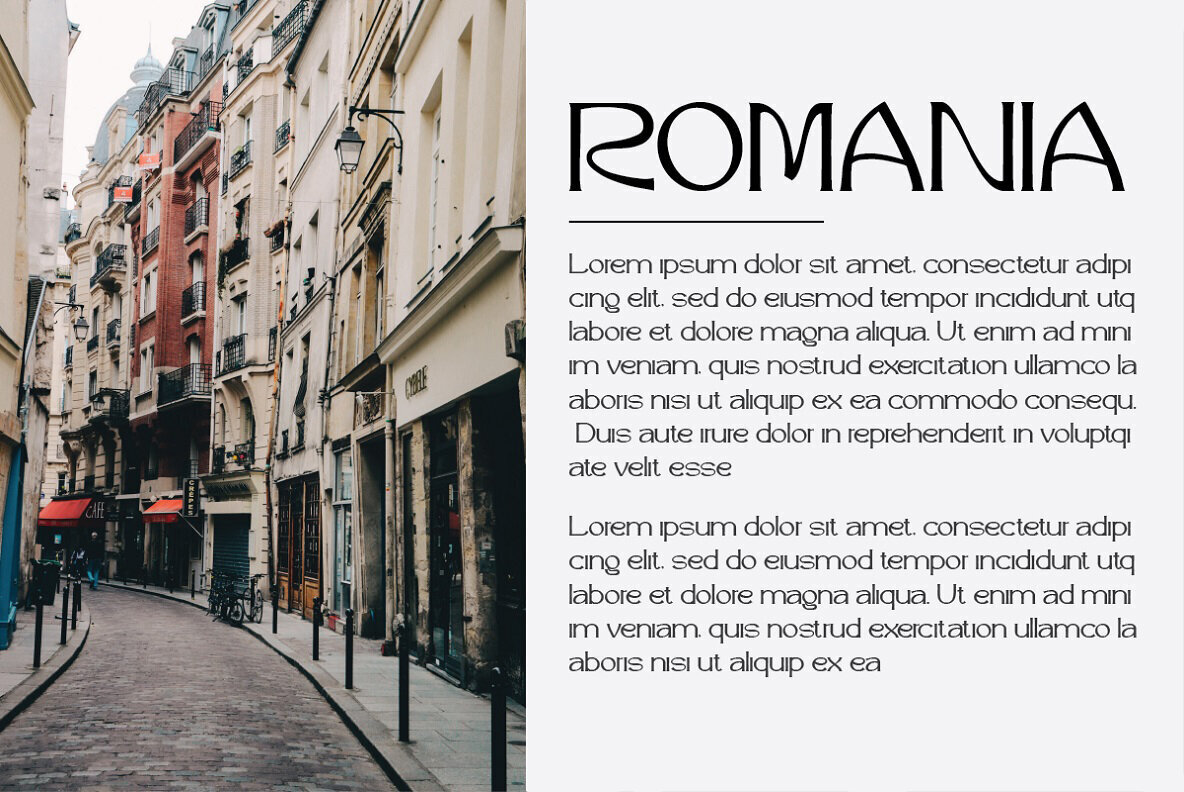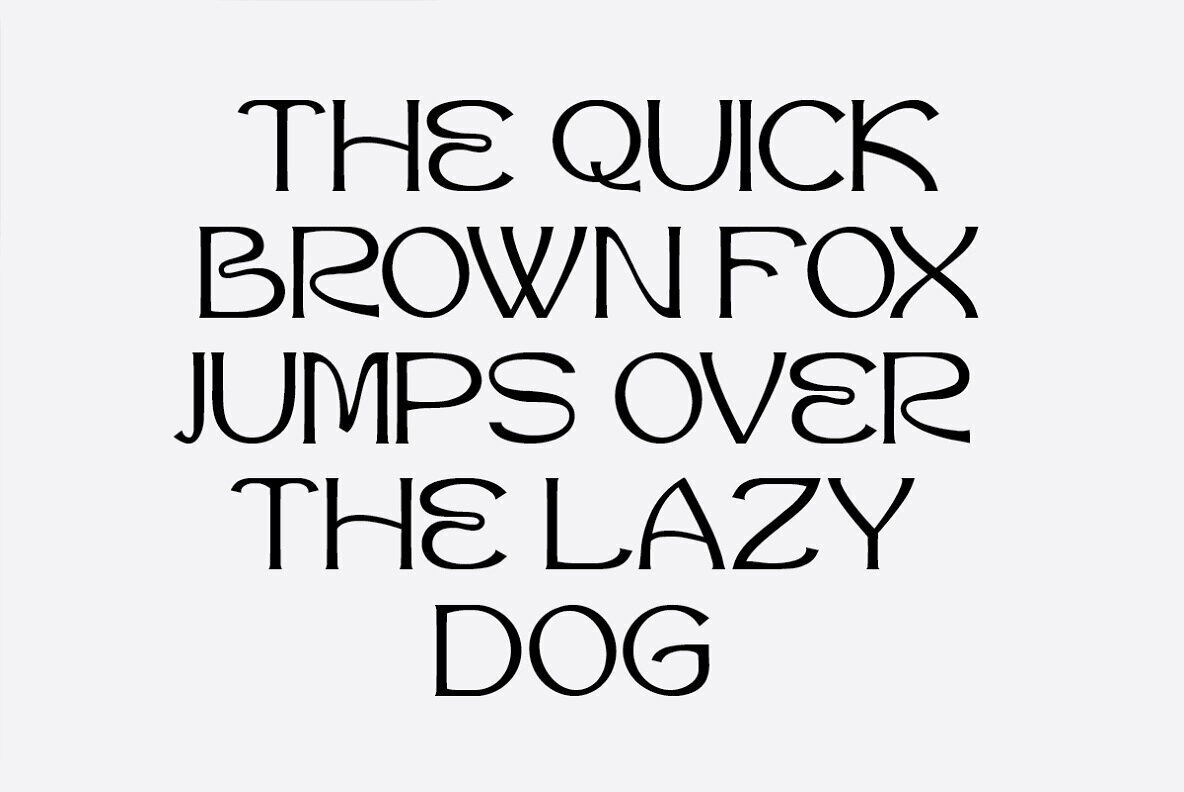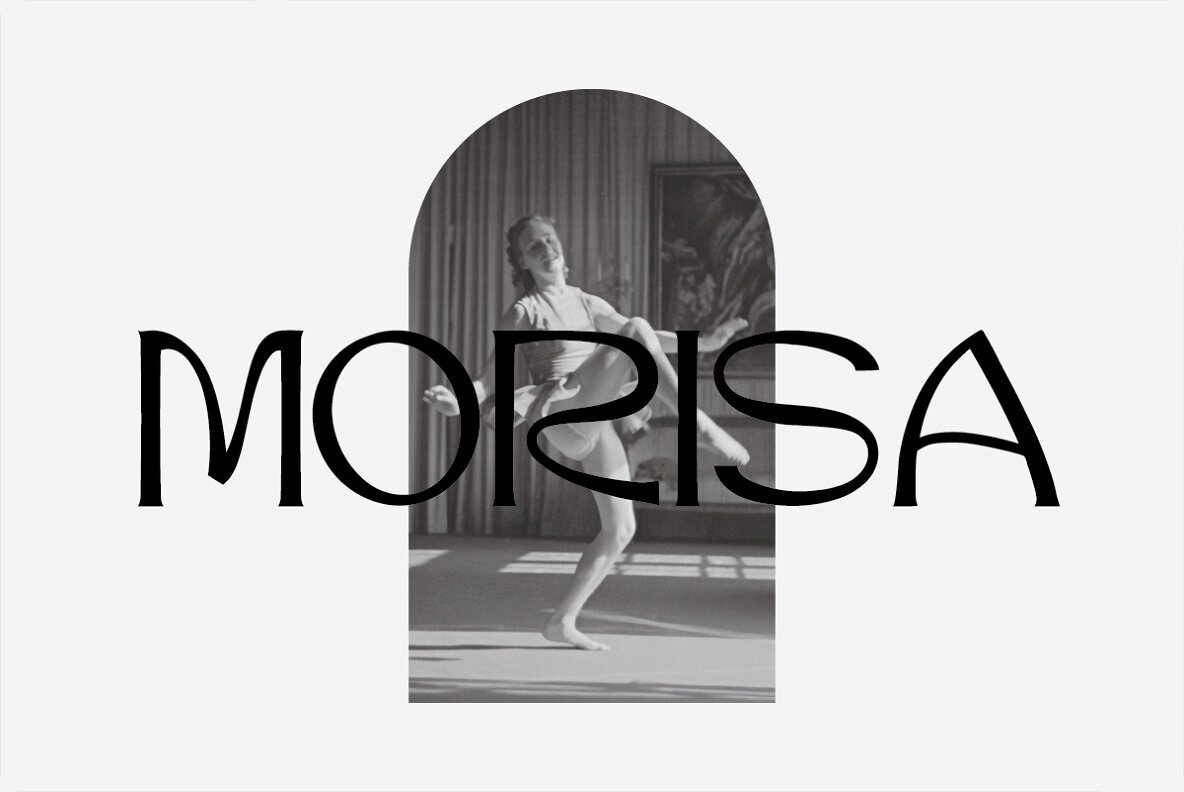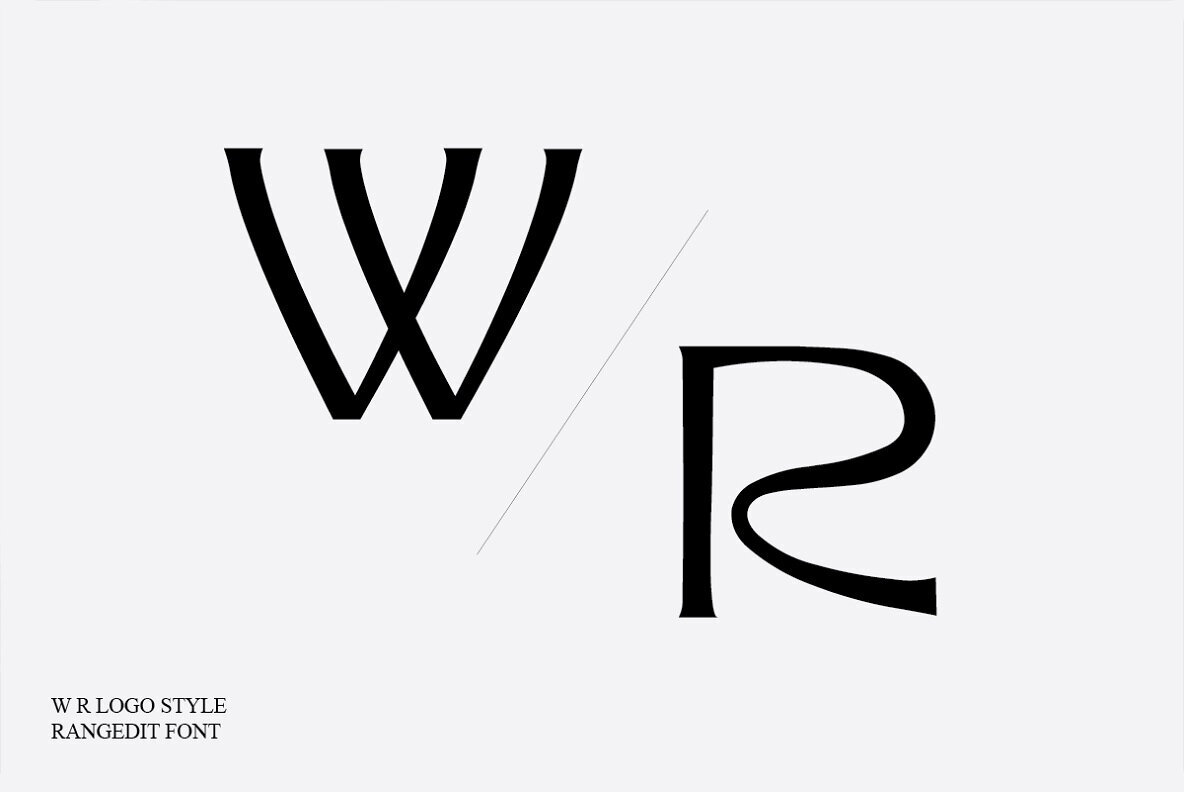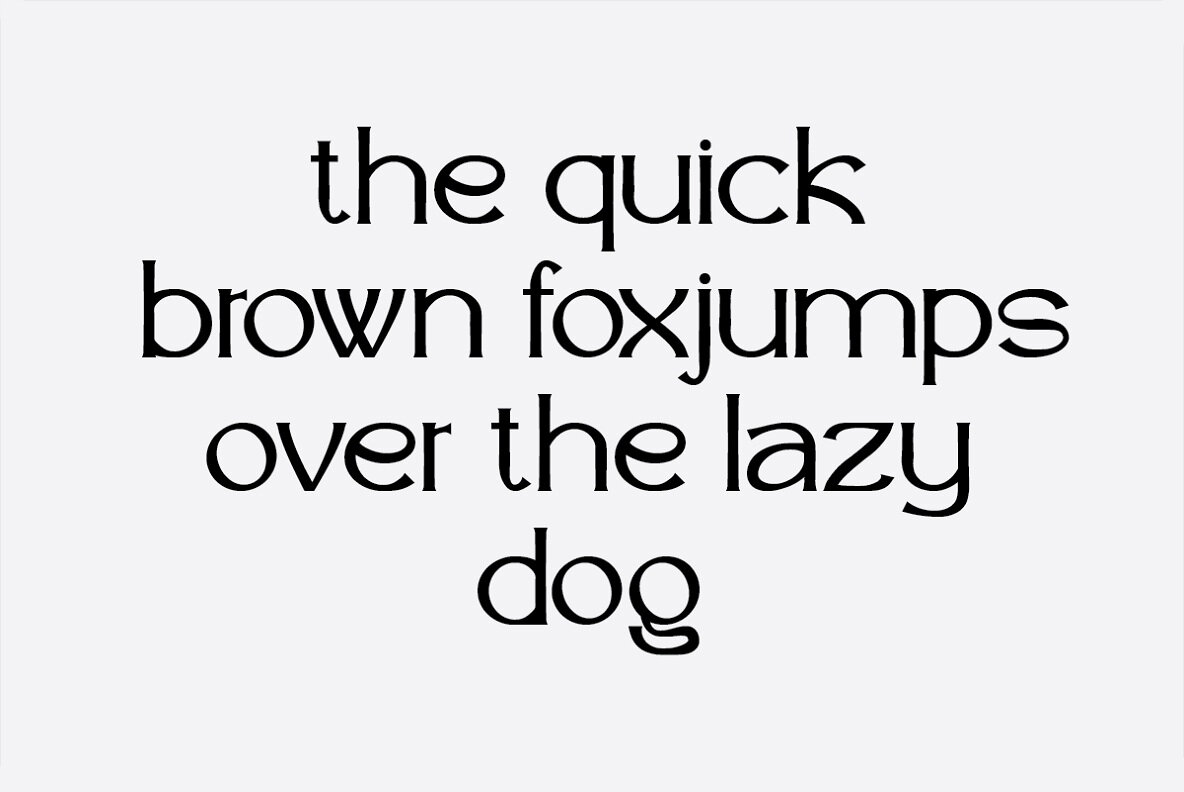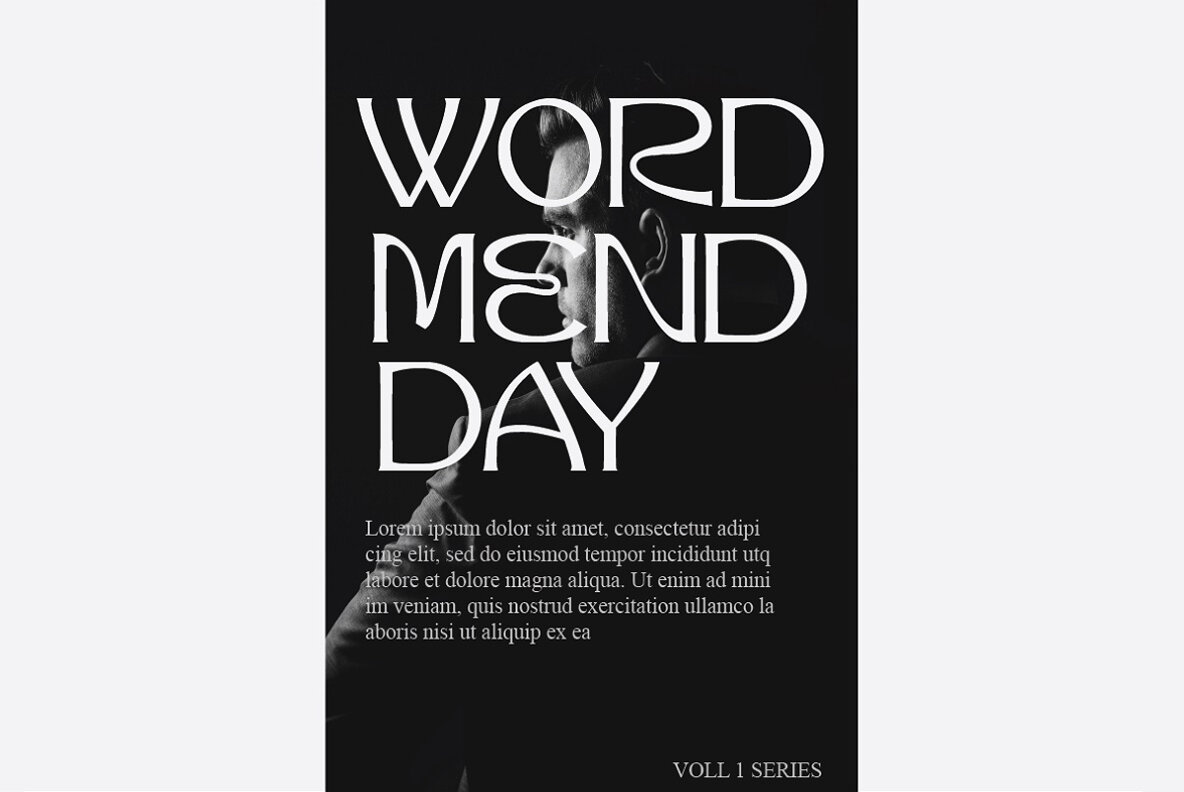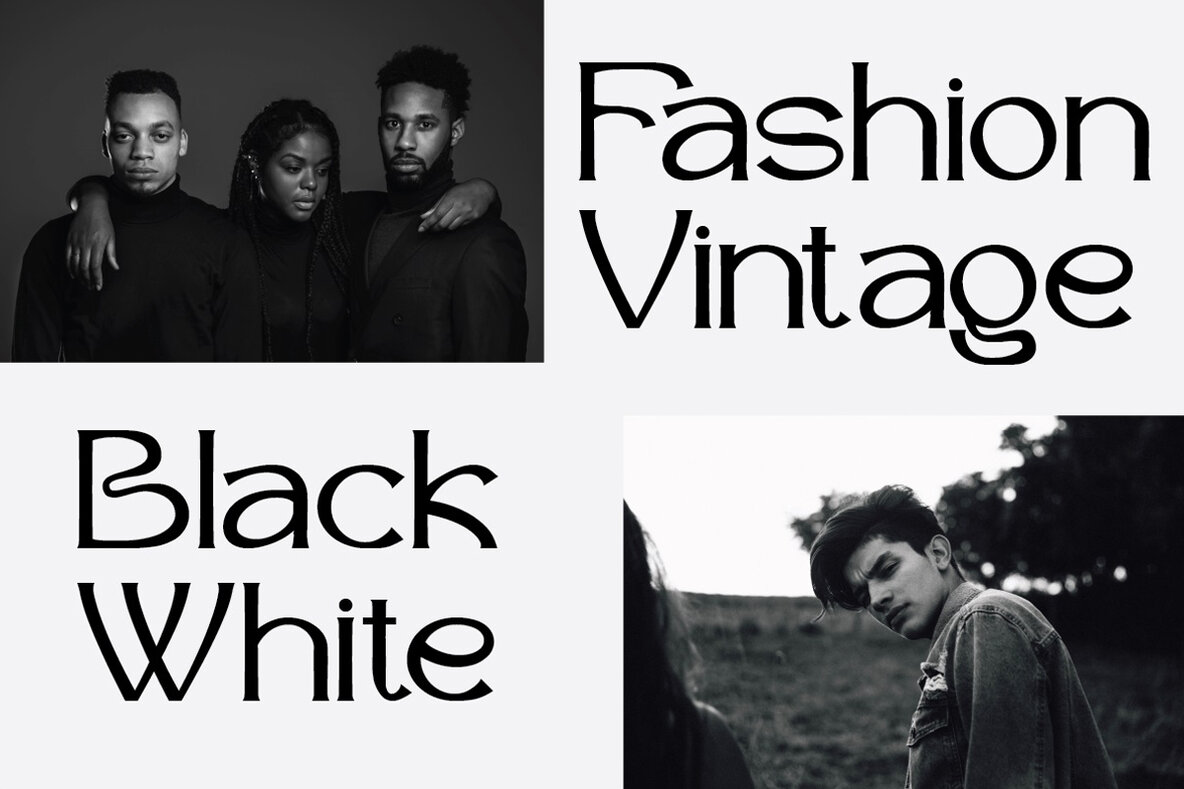
Rangedit Font
Rangedit
Rangedit by Muksal Creative brings a touch of vintage flair to diverse creative projects. Ideal for magazines, banners, and branding, this display font captures the essence of retro aesthetics. Whether designing stationery, name tags, or invitations, Rangedit offers distinctive, easily accessible glyphs and swashes due to its PUA encoding.Rangedit: Distinctive Display Font for Retro Enthusiasts
Experience the charm of Rangedit in your next project and embrace a vintage twist in your typography.